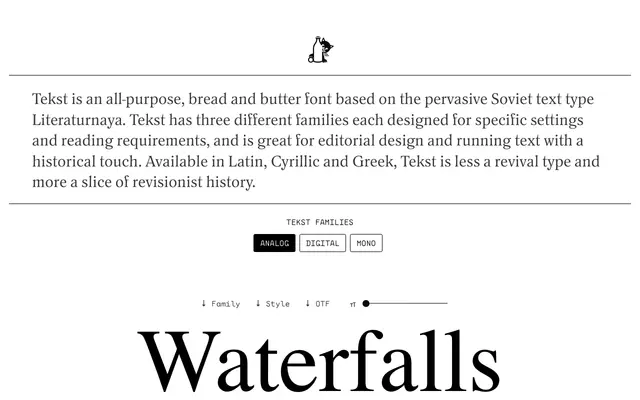
Tekst
East of Rome · Lewis McGuffie
A three-family text type drawn from the Soviet Literaturnaya, split across print, screen and mono variants with Latin, Cyrillic and Greek coverage.
Designed by Lewis McGuffie, Tekst takes Literaturnaya, the pervasive Soviet text typeface, as its starting point rather than a direct revival source. The family splits into Tekst A for print and Tekst D for screen, engineered to produce visually equivalent results in their respective environments at 9-12pt reading sizes, with Tekst M offering a monospaced companion. Each family runs to four styles, and the full collection covers over 1,000 characters across Latin, Cyrillic and Greek.
Based on Literaturnaya, a Soviet-era transitional text type, Tekst retains the upright, sturdy letterforms typical of mid-century Eastern European text serifs with moderate contrast and bracketed serifs.